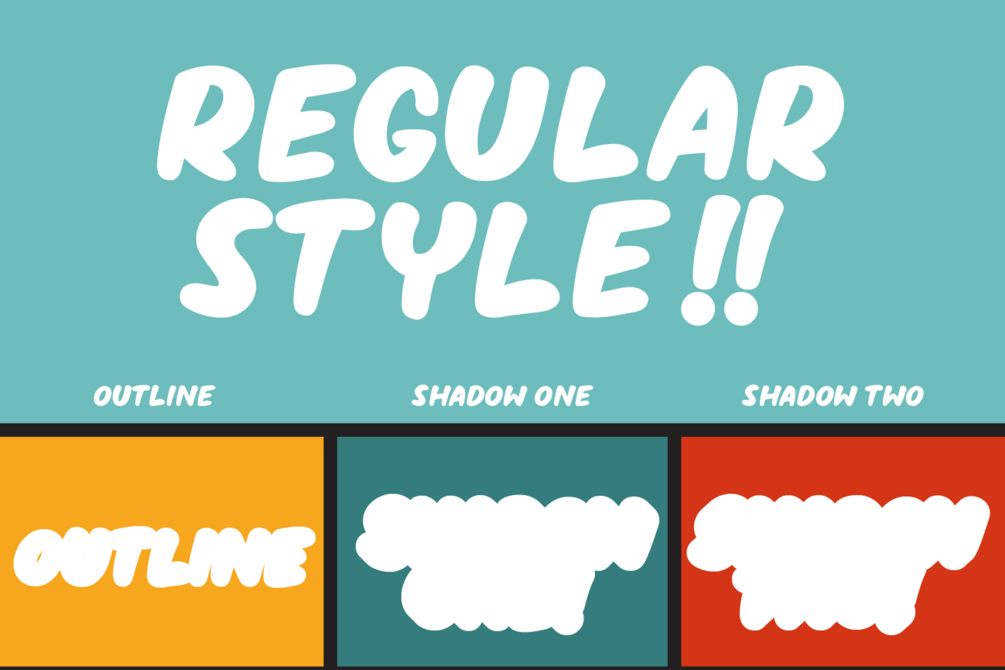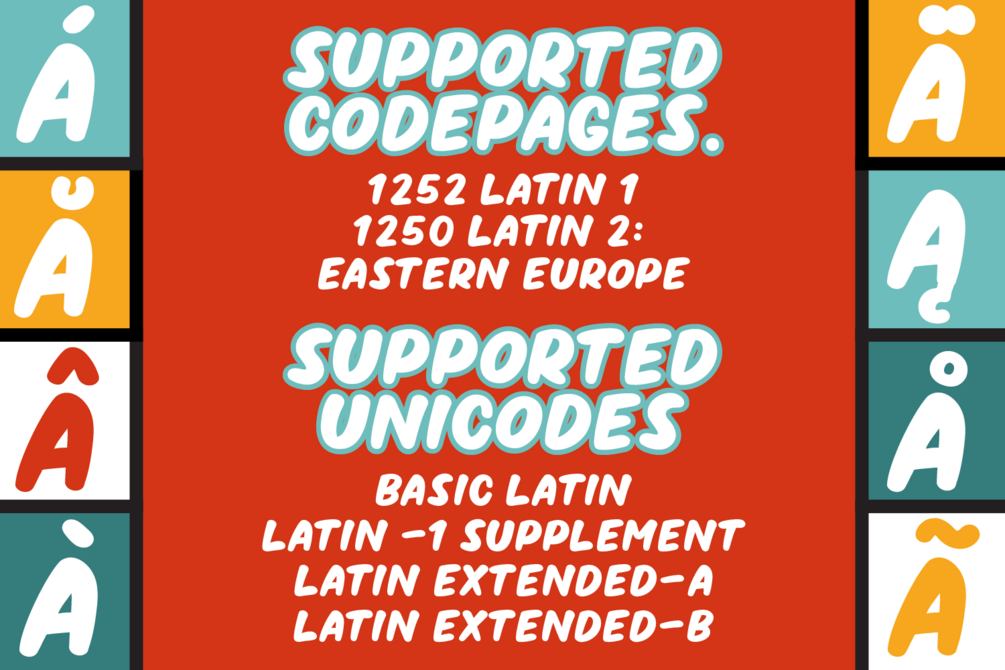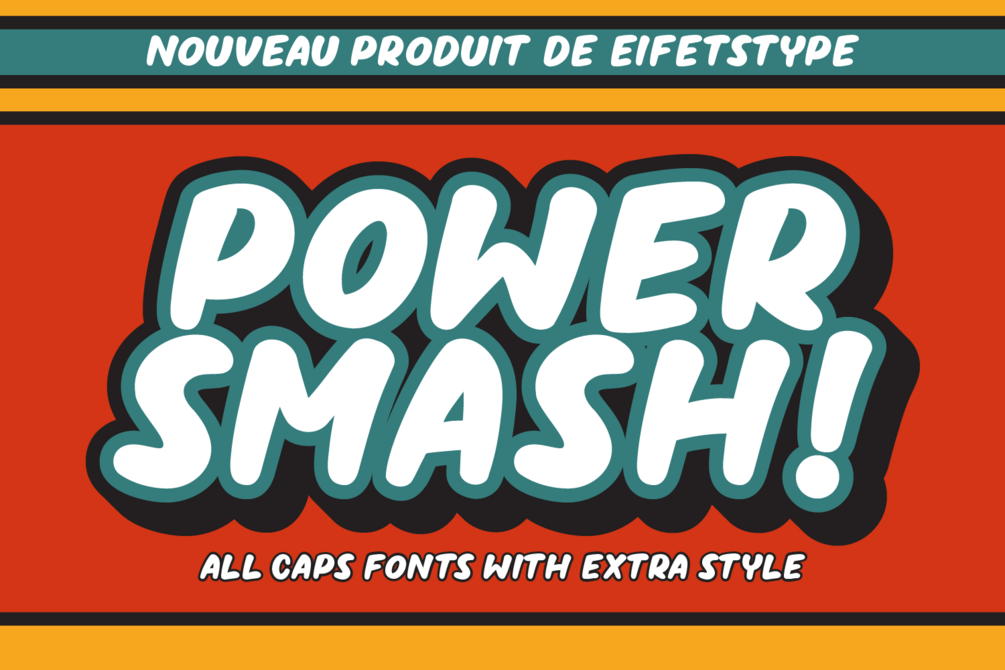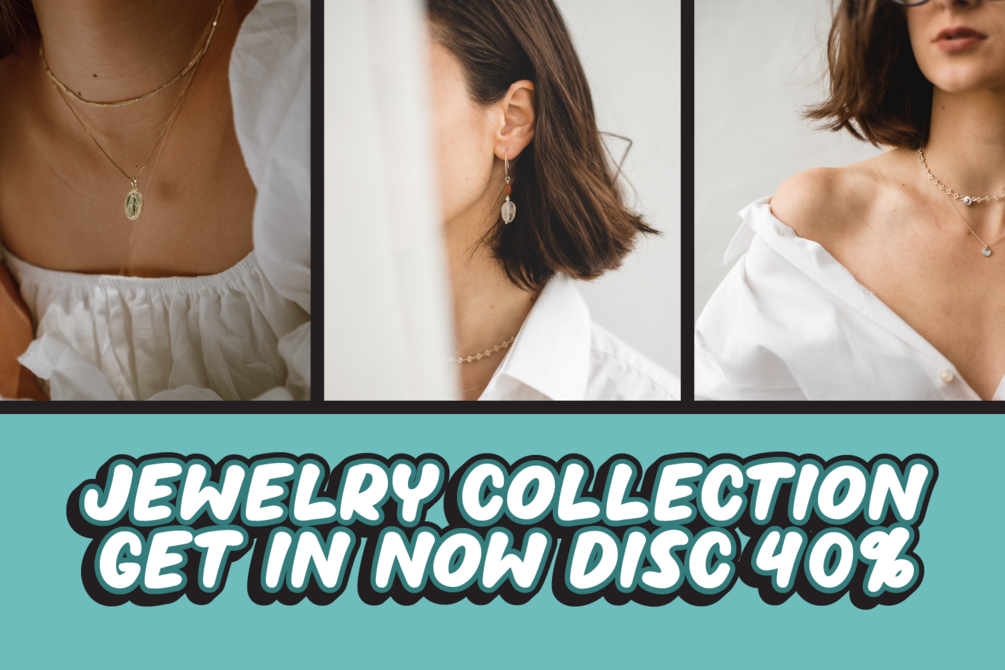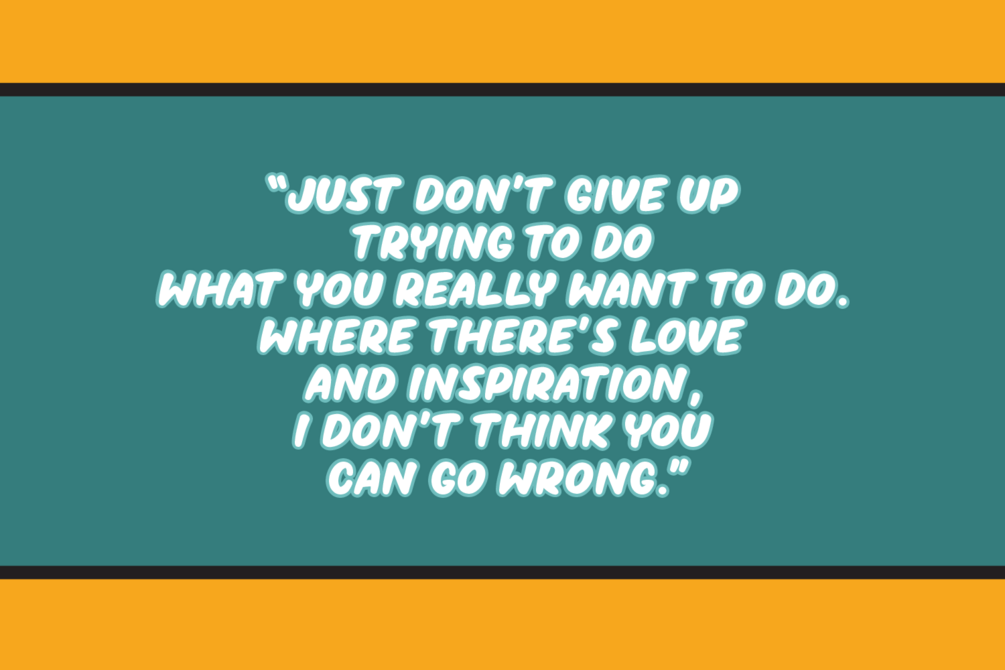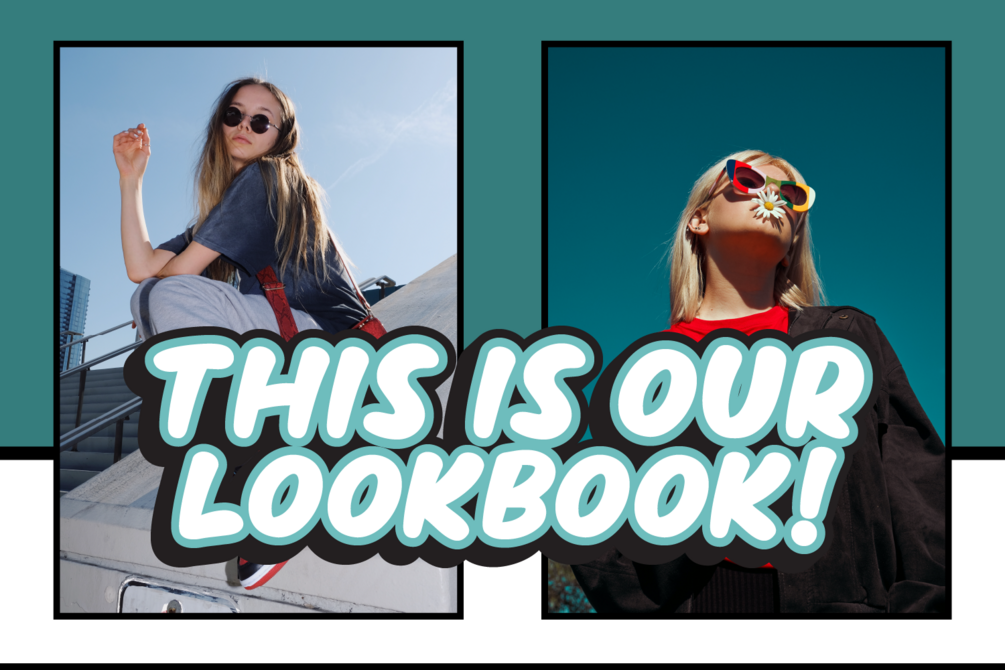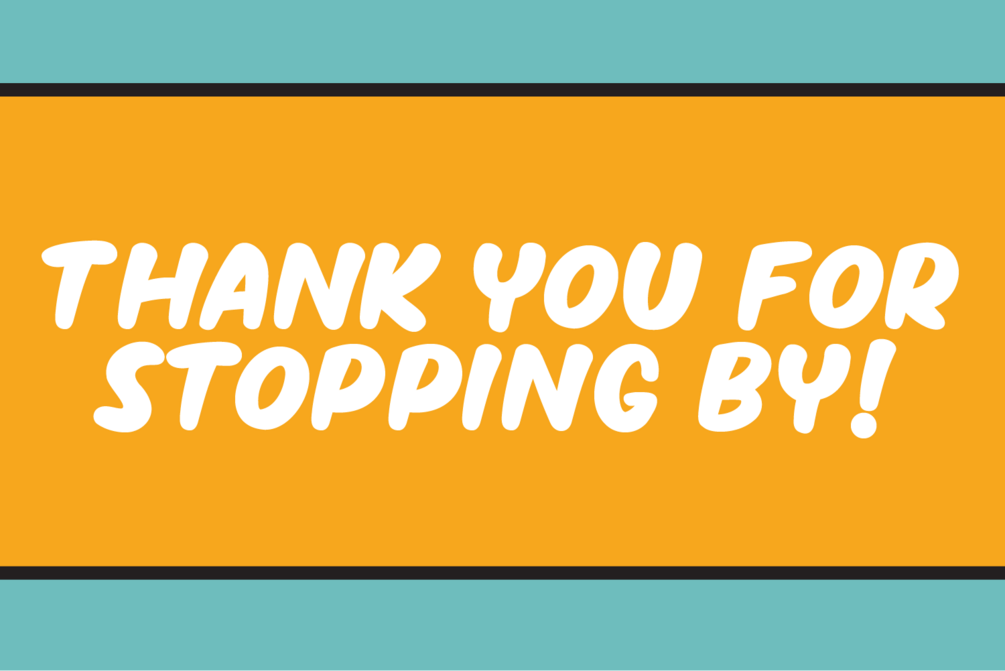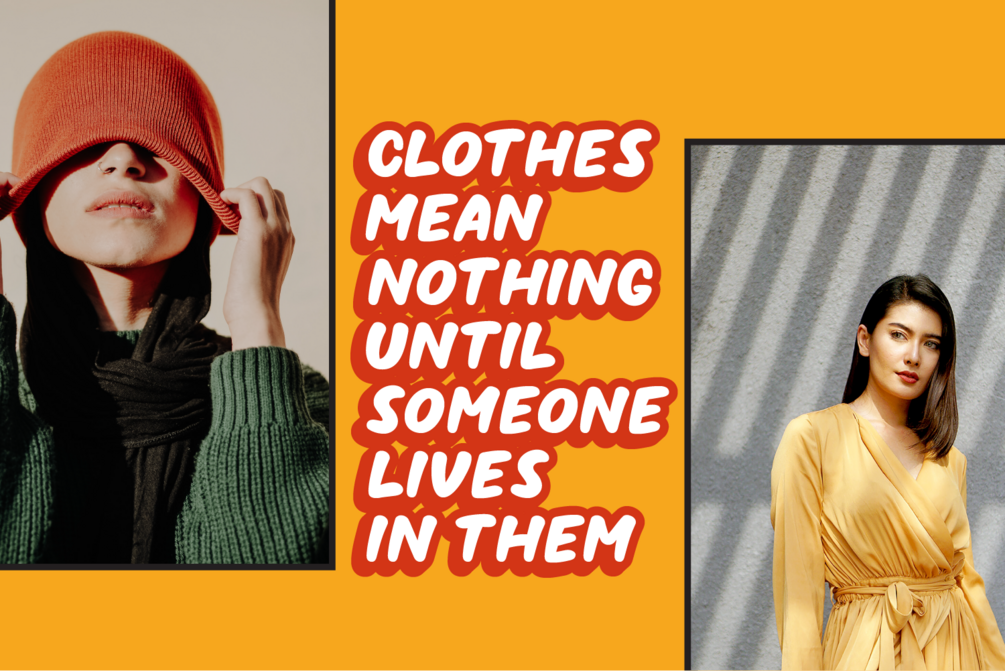
Power Smash - Display Layered Fonts
Hello, this is the display font "Power Smash"
The font made by 100% handmade. looks pretty, Easy to read, Easy to access Multilingual, PUA Encoded.
This font can match with anything graphic.
Included style : Outline, Shadow One & Shadow Two
• Uppercase
• Lowercase
• Numerals
• Symbols
• European Multilingual